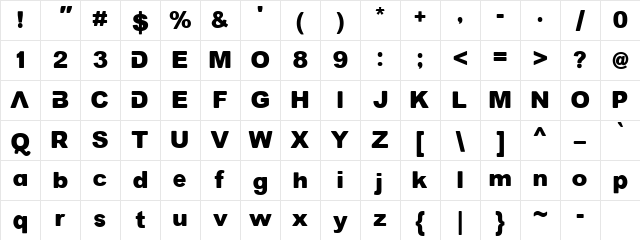
Complete Accasia_Demo Regular glyph index. Displaying only characters natively supported by Accasia_Demo Regular font.
Accasia_Demo is a composed and adaptable typeface that performs quietly and consistently across a wide range of design contexts.